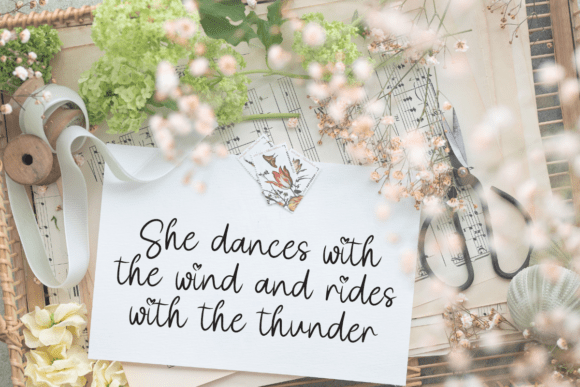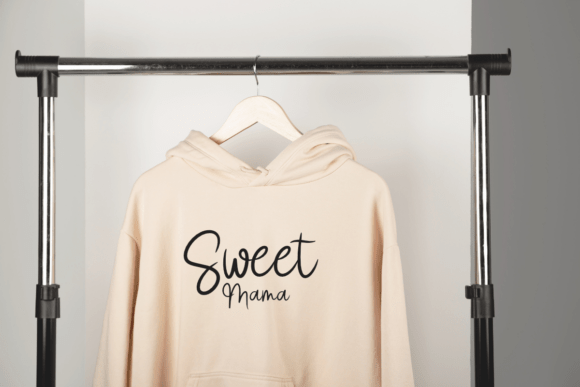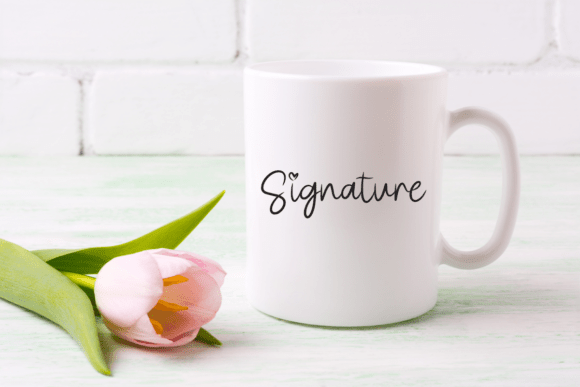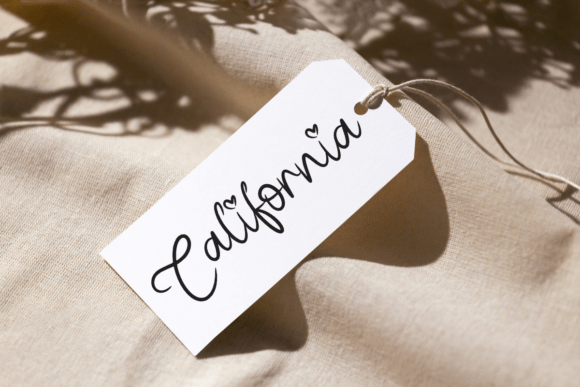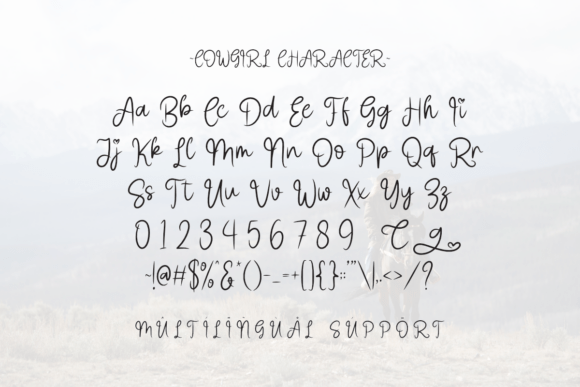
Cowgirl Font: Elevate Your Designs with a Touch of Elegance and Warmth
In the world of typography, fonts play a crucial role in conveying the tone and personality of a design. For designers and crafters looking to add a touch of elegance and warmth to their creations, the Cowgirl Font is an excellent choice. This modern handwritten script font is perfect for a variety of projects, from wedding invitations and nursery decor to greeting cards, branding, wall art, tumblers, stickers, and Cricut designs.
What Makes Cowgirl Font Special?
Cowgirl Font stands out for its smooth lines and flowing curves, which give it a unique and sophisticated look. The font’s modern handwritten script style makes it versatile and suitable for various design applications. Whether you’re creating a romantic wedding invitation or a playful nursery decor, Cowgirl Font is sure to impress.
Perfect for Wedding Invitations
Wedding planning is an exciting time, and the invitation sets the tone for the big day. With Cowgirl Font, you can create beautiful and elegant wedding invitations that reflect the couple’s personality. The font’s smooth lines and flowing curves add a touch of sophistication, making it perfect for formal or semi-formal weddings.
Nursery Decor and Kids’ Designs
Cowgirl Font is also an excellent choice for nursery decor and kids’ designs. The font’s playful and whimsical feel makes it perfect for creating adorable wall art, stickers, and other nursery decorations. Parents and designers can use Cowgirl Font to create a warm and welcoming environment for little ones.
Greeting Cards and Stationery
Greeting cards and stationery are an excellent way to express your thoughts and feelings. Cowgirl Font is perfect for creating beautiful and heartfelt greeting cards for special occasions like birthdays, anniversaries, and holidays. The font’s elegant and cursive style makes it suitable for formal and informal correspondence.
Branding and Marketing Materials
For businesses and entrepreneurs, Cowgirl Font can be used to create stunning branding and marketing materials. The font’s modern and sophisticated look makes it perfect for logos, packaging, and advertising materials. With Cowgirl Font, you can add a touch of elegance and warmth to your brand’s visual identity.
Wall Art and Home Decor
Cowgirl Font is not just limited to digital designs; it can also be used for creating beautiful wall art and home decor. Designers and crafters can use the font to create stunning quotes, posters, and prints that add a touch of personality to any room.
Tumblers, Stickers, and Cricut Designs
Cowgirl Font is also perfect for crafters who love working with tumblers, stickers, and Cricut machines. The font’s smooth lines and flowing curves make it easy to cut and weed, resulting in beautiful and professional-looking designs.
Why Choose Cowgirl Font?
So, why choose Cowgirl Font for your designs? Here are a few reasons:
- Elegant and sophisticated look: Cowgirl Font adds a touch of elegance and warmth to any design.
- Versatile: The font is suitable for various design applications, from wedding invitations to nursery decor.
- Easy to use: Cowgirl Font is easy to read and works well in both digital and print formats.
- Unique and creative: The font’s modern handwritten script style makes it stand out from other fonts.
In conclusion, Cowgirl Font is a beautiful and versatile font that can elevate your designs with a touch of elegance and warmth. Whether you’re a designer, crafter, or entrepreneur, this modern handwritten script font is perfect for creating stunning wedding invitations, nursery decor, greeting cards, branding, wall art, tumblers, stickers, and Cricut designs. With its smooth lines and flowing curves, Cowgirl Font is sure to impress and add a unique touch to your creations.